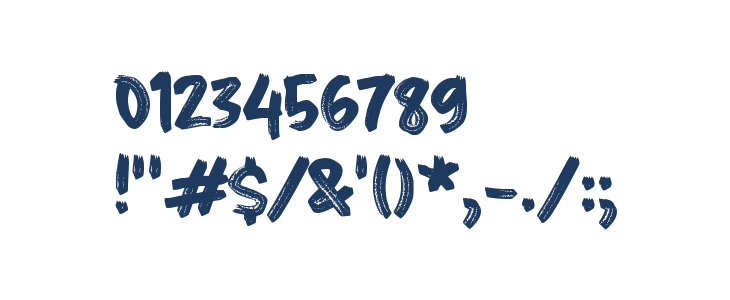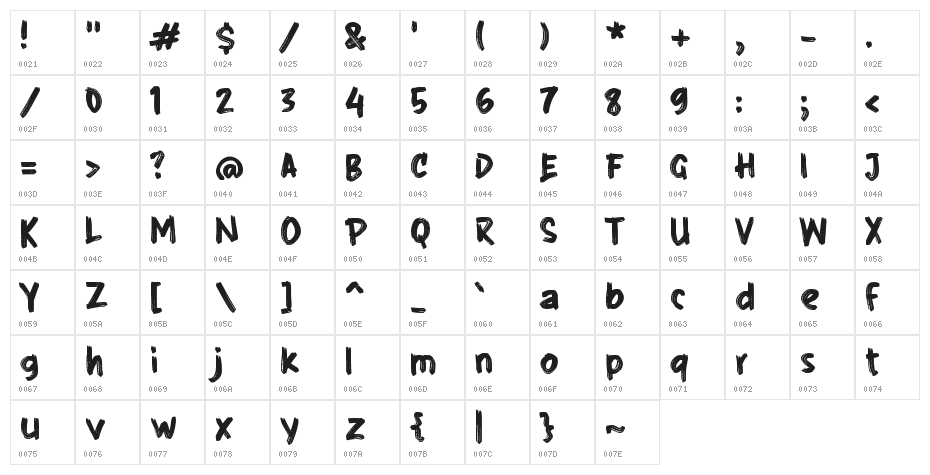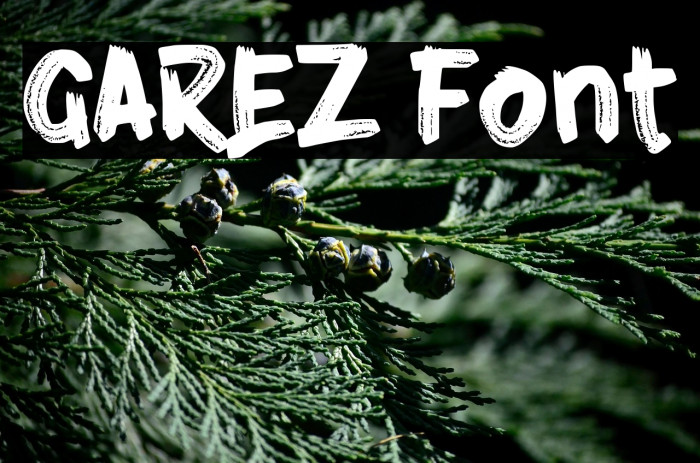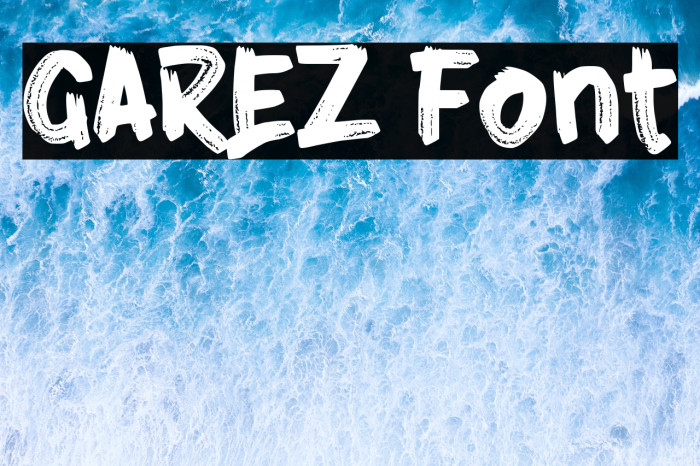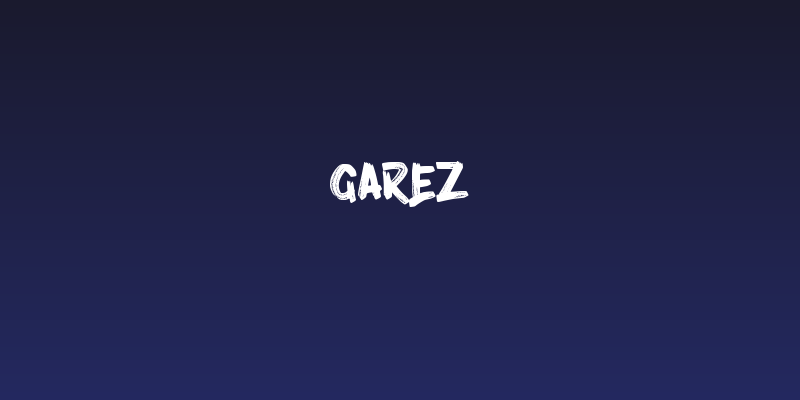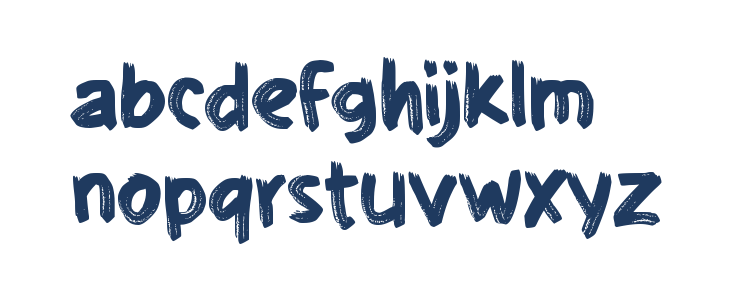
GAREZ Font
GAREZ Description
This font exhibits a bold, hand-drawn style with a rough, textured appearance that gives it a dynamic and energetic feel. The letters are slightly irregular, adding a playful and informal touch. The uppercase and lowercase characters maintain a consistent style, with thick strokes and uneven edges that suggest a brush or marker tool was used in its creation. The numerals and special characters follow the same aesthetic, ensuring a cohesive look across all glyphs. This font is ideal for projects that require a casual, artistic vibe.
| Use Case | Headlines, Posters, Branding |
| Proposed Projects | Perfect for posters, social media graphics, branding for creative industries, and any project needing a lively, informal touch. |